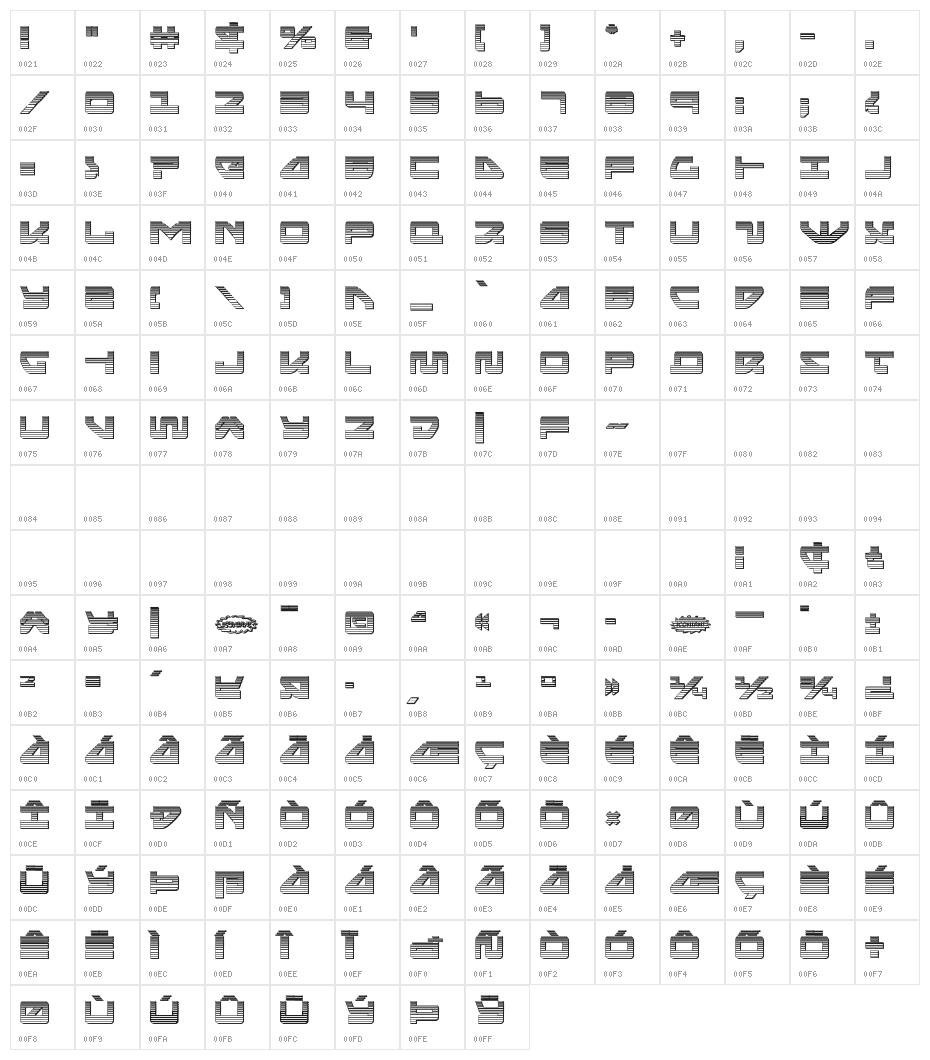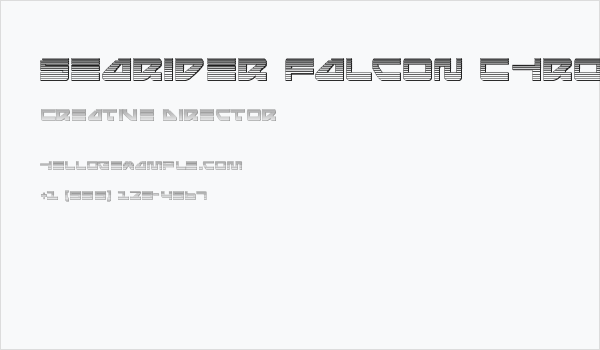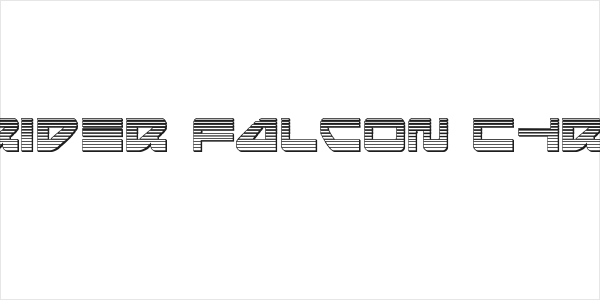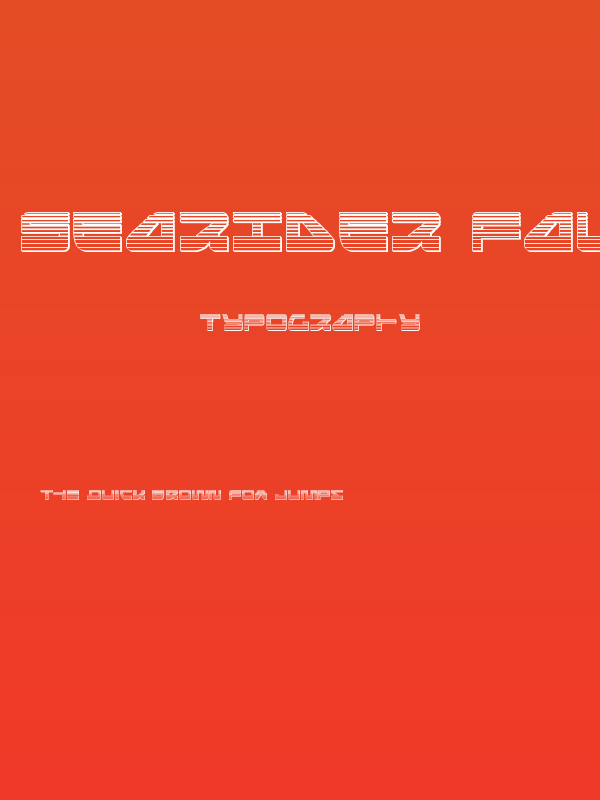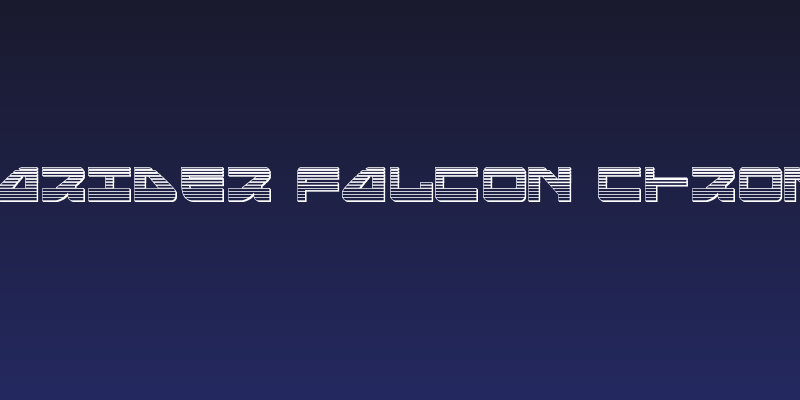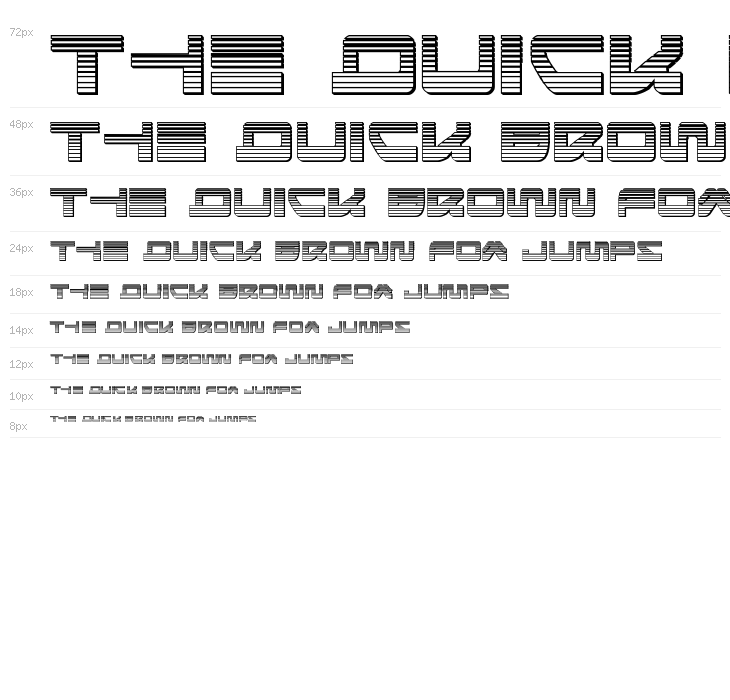
Searider Falcon Chrome Font
Searider Falcon Chrome Description
This font features a futuristic and geometric design, characterized by its multi-line, striped appearance. Each character is composed of parallel horizontal lines that create a sense of depth and movement. The uppercase and lowercase letters maintain a consistent style, with sharp angles and a bold presence. The numerals and special characters follow the same design principles, ensuring a cohesive look across all glyphs. This font's unique style makes it stand out, offering a modern and dynamic aesthetic that is both eye-catching and versatile.
| Proposed Projects | Ideal for sci-fi themed projects, modern branding, technology-related designs, and creative posters. |